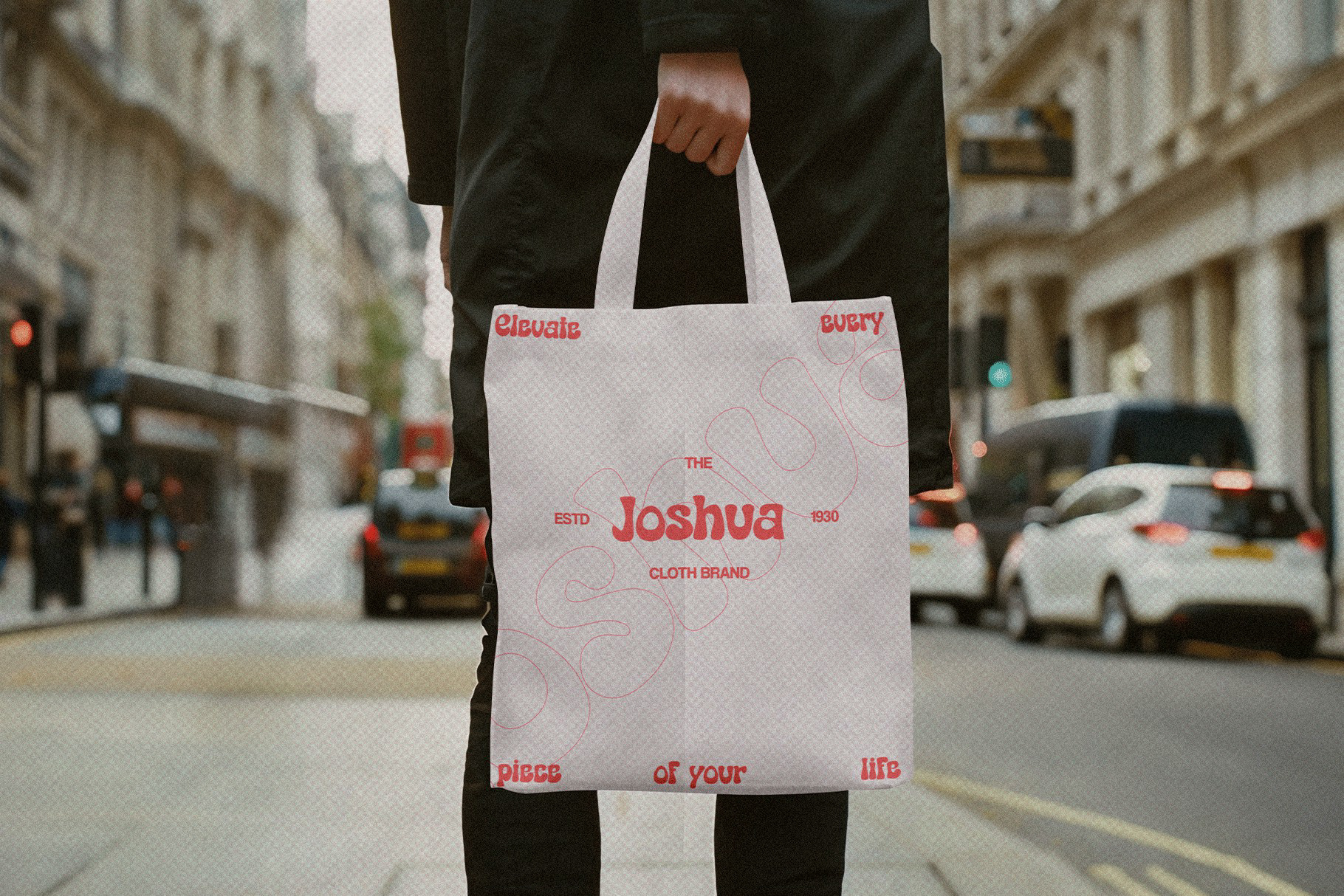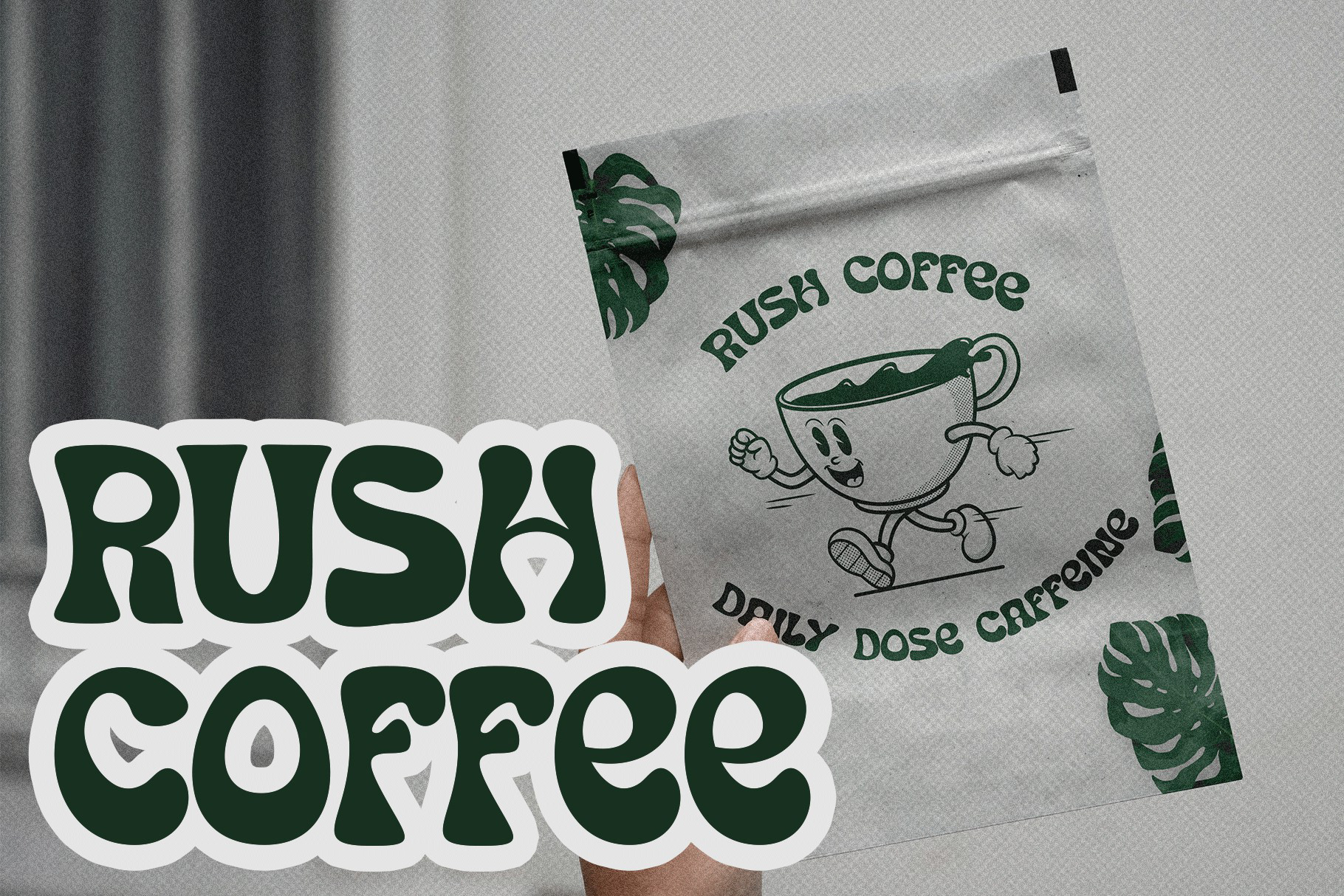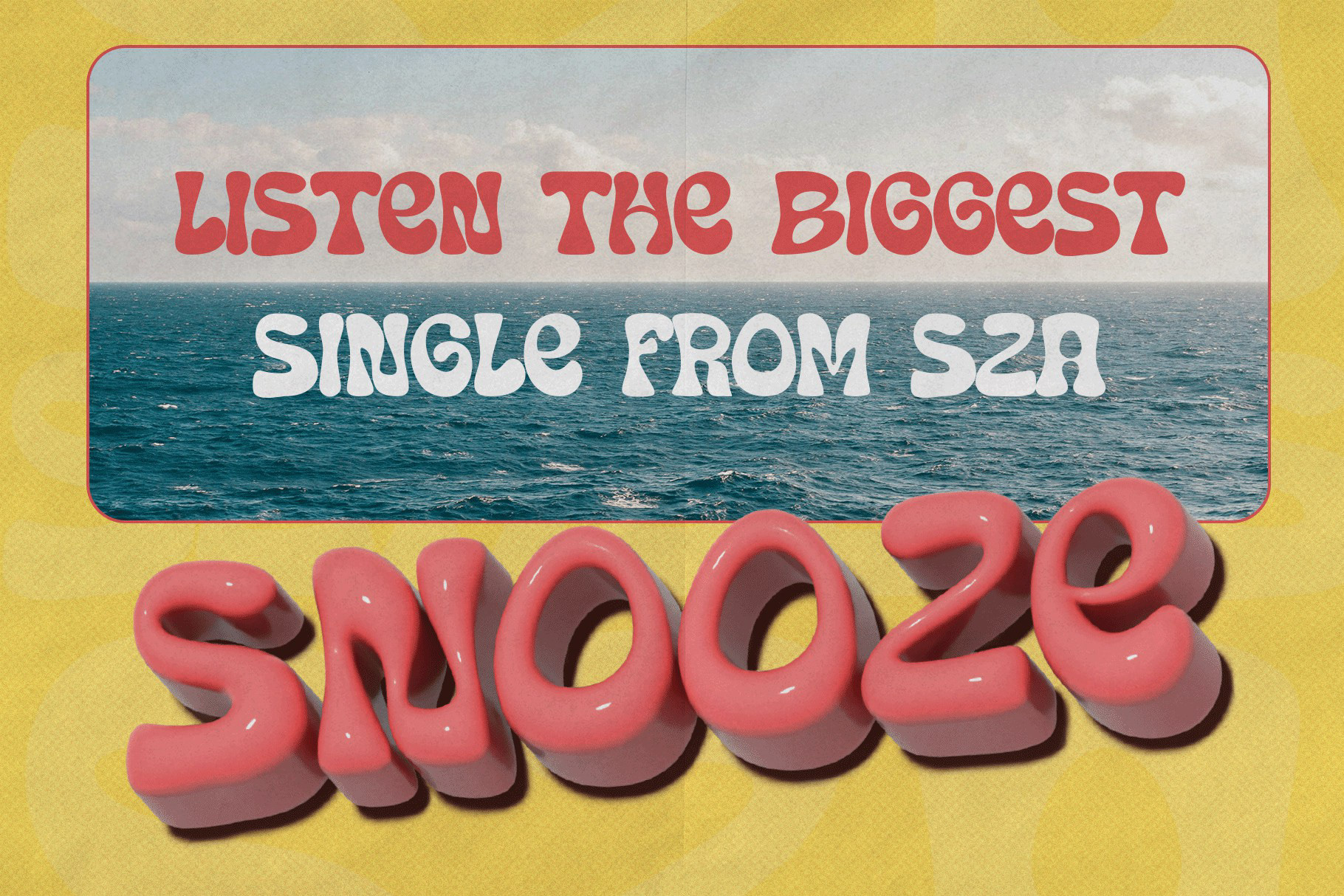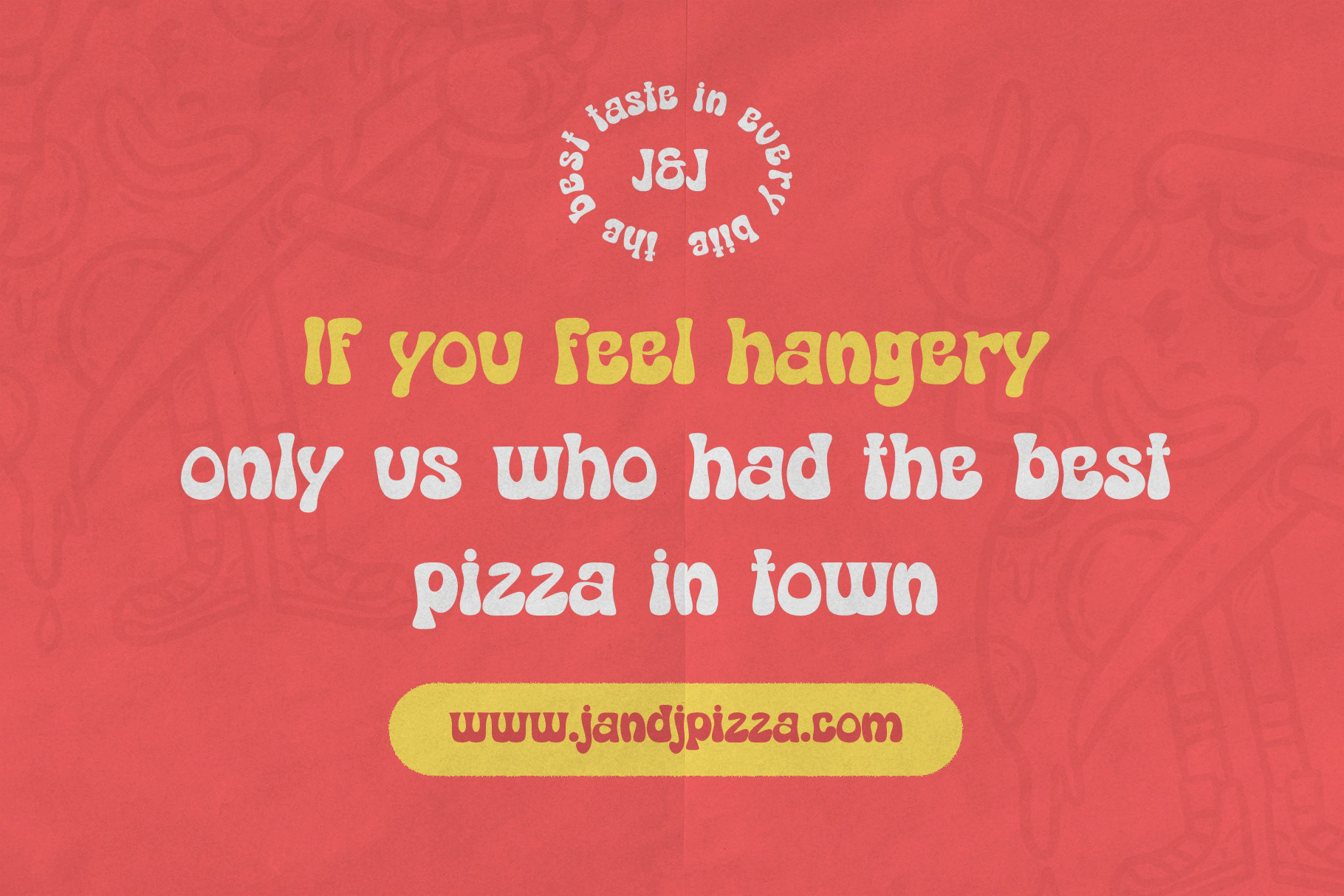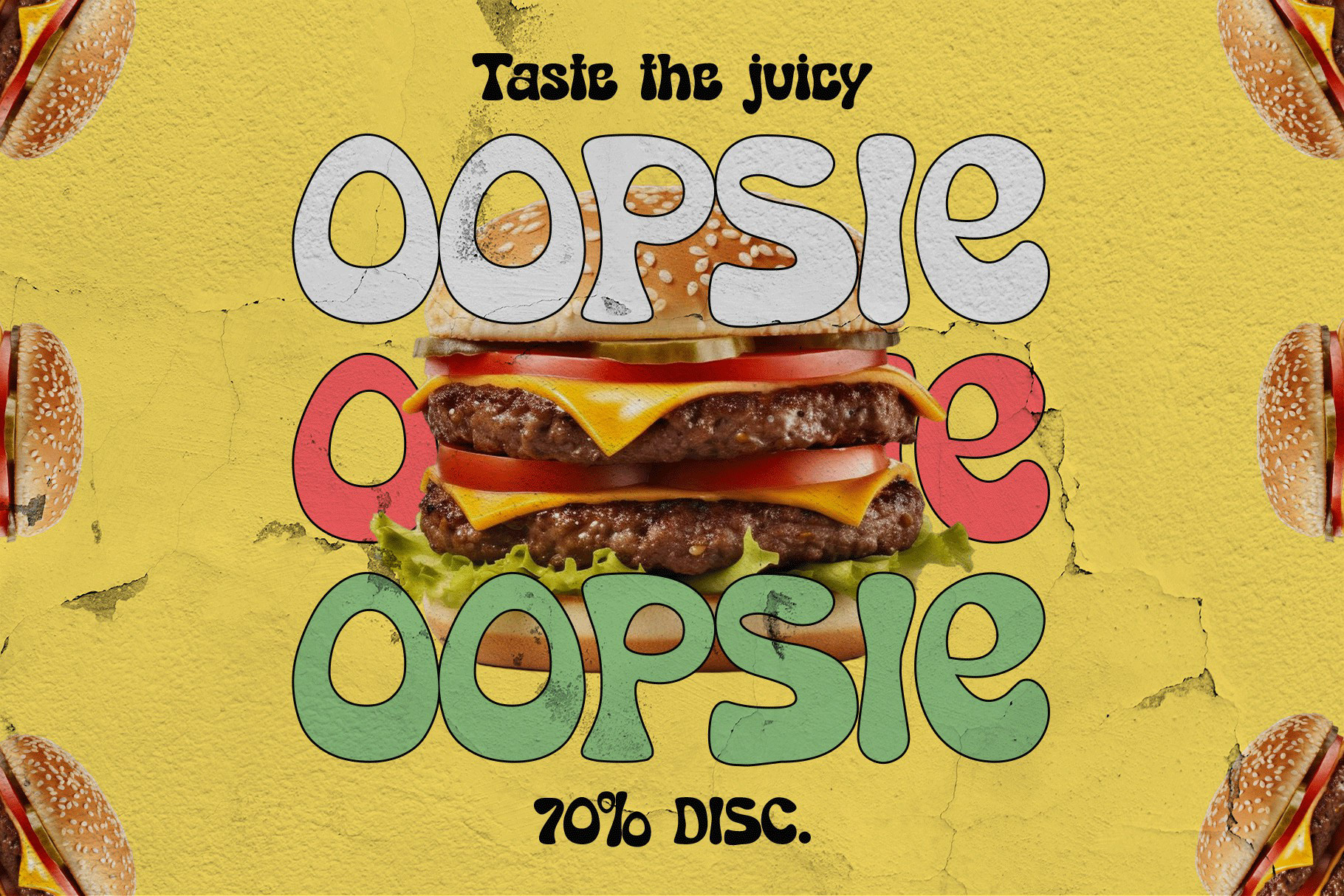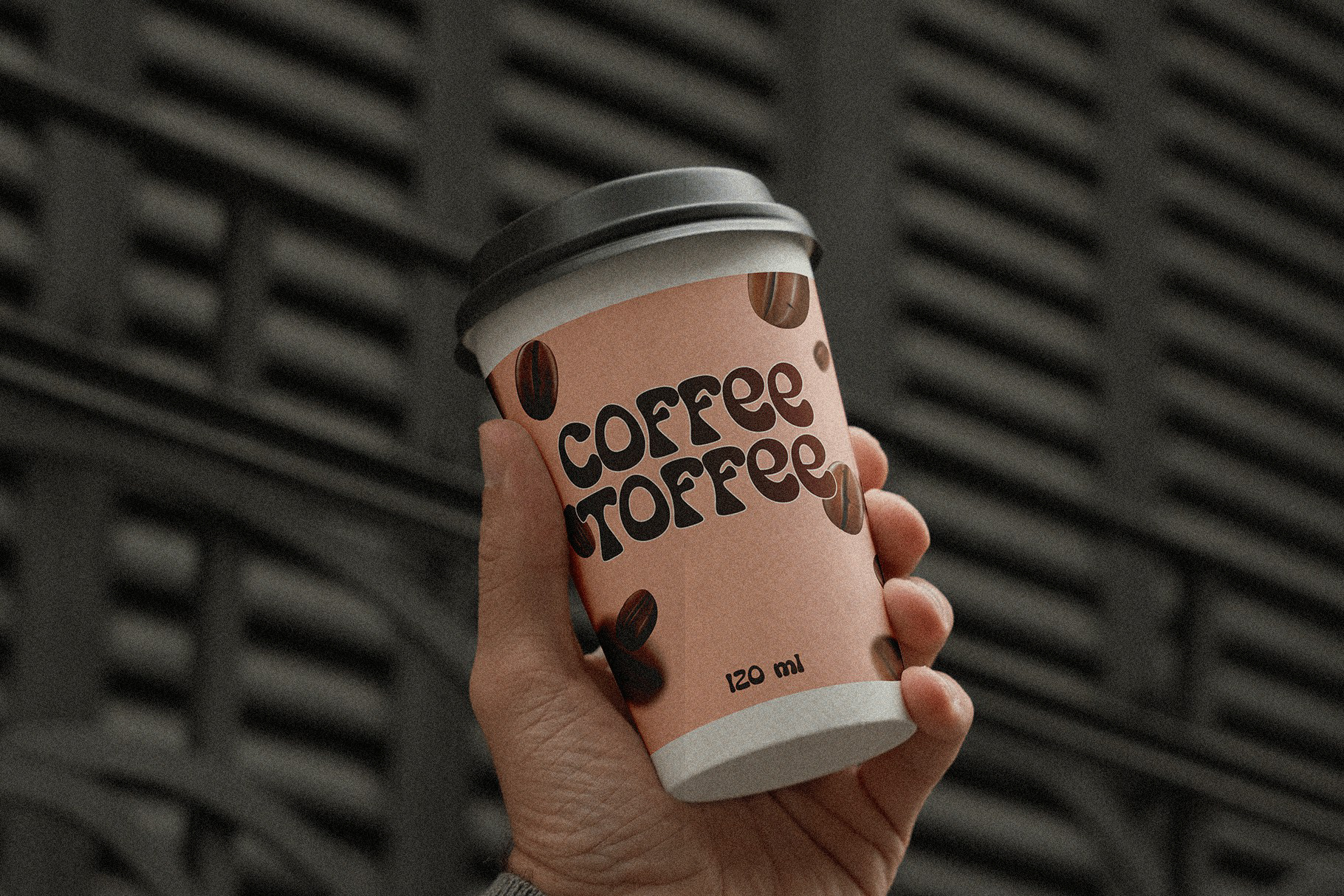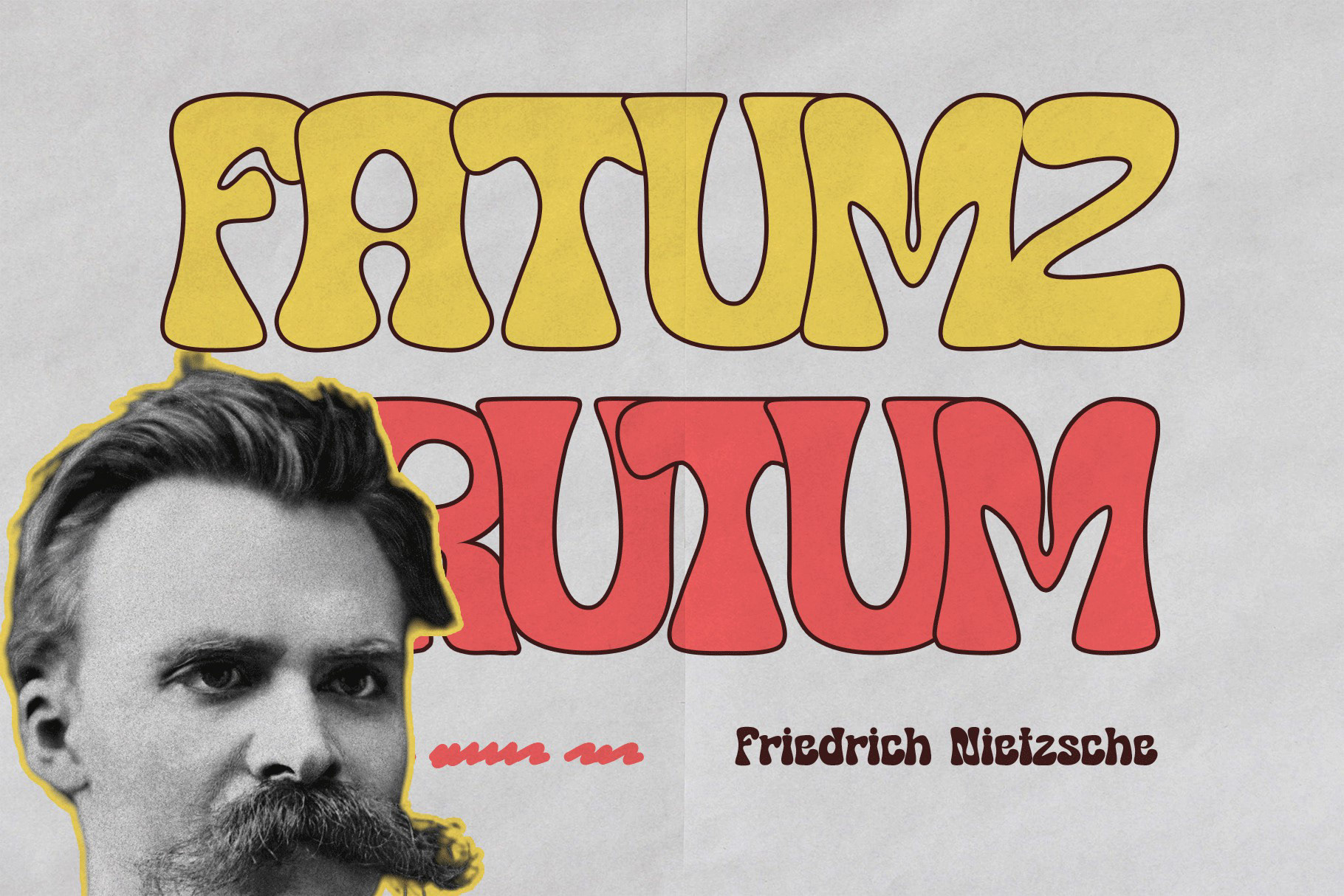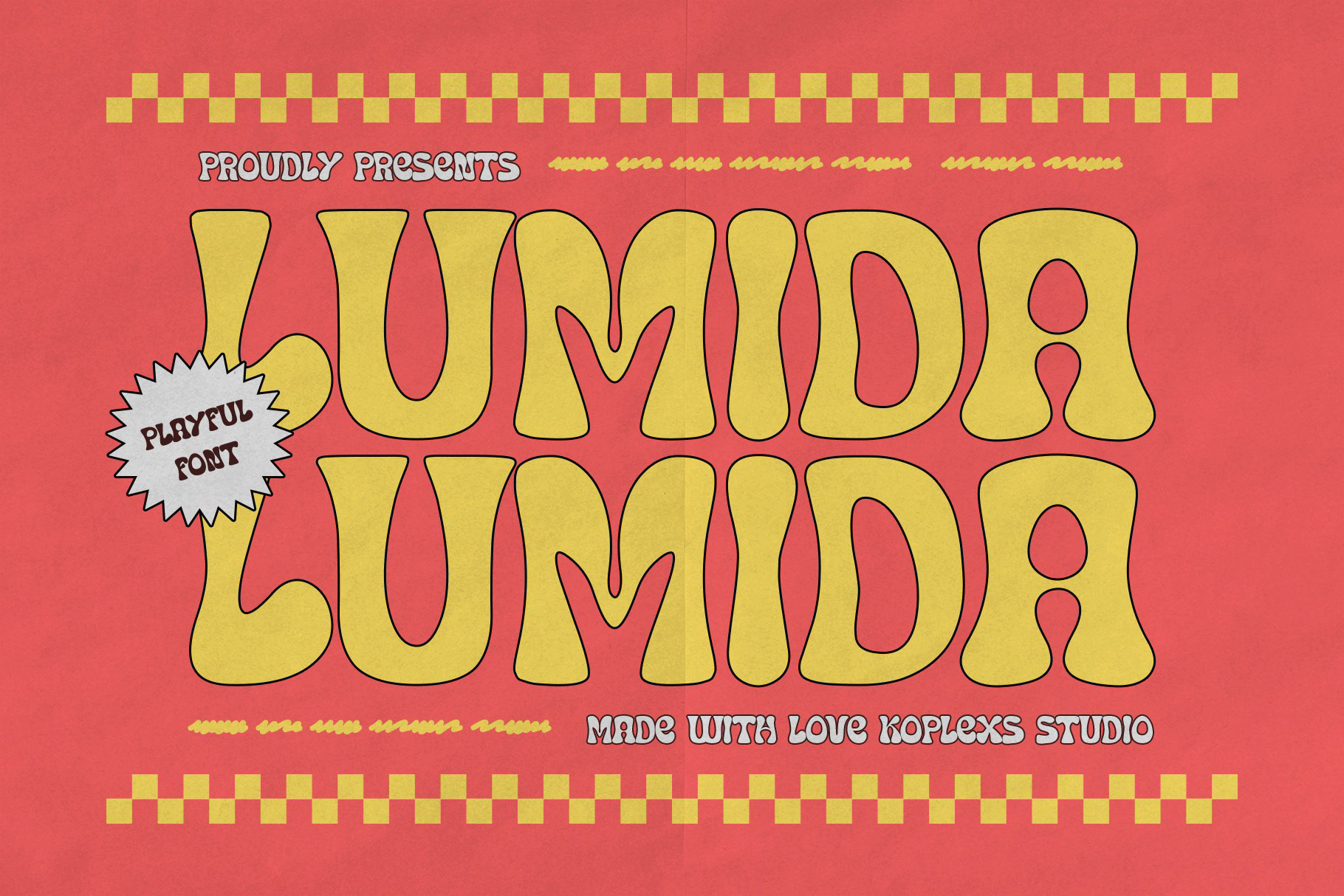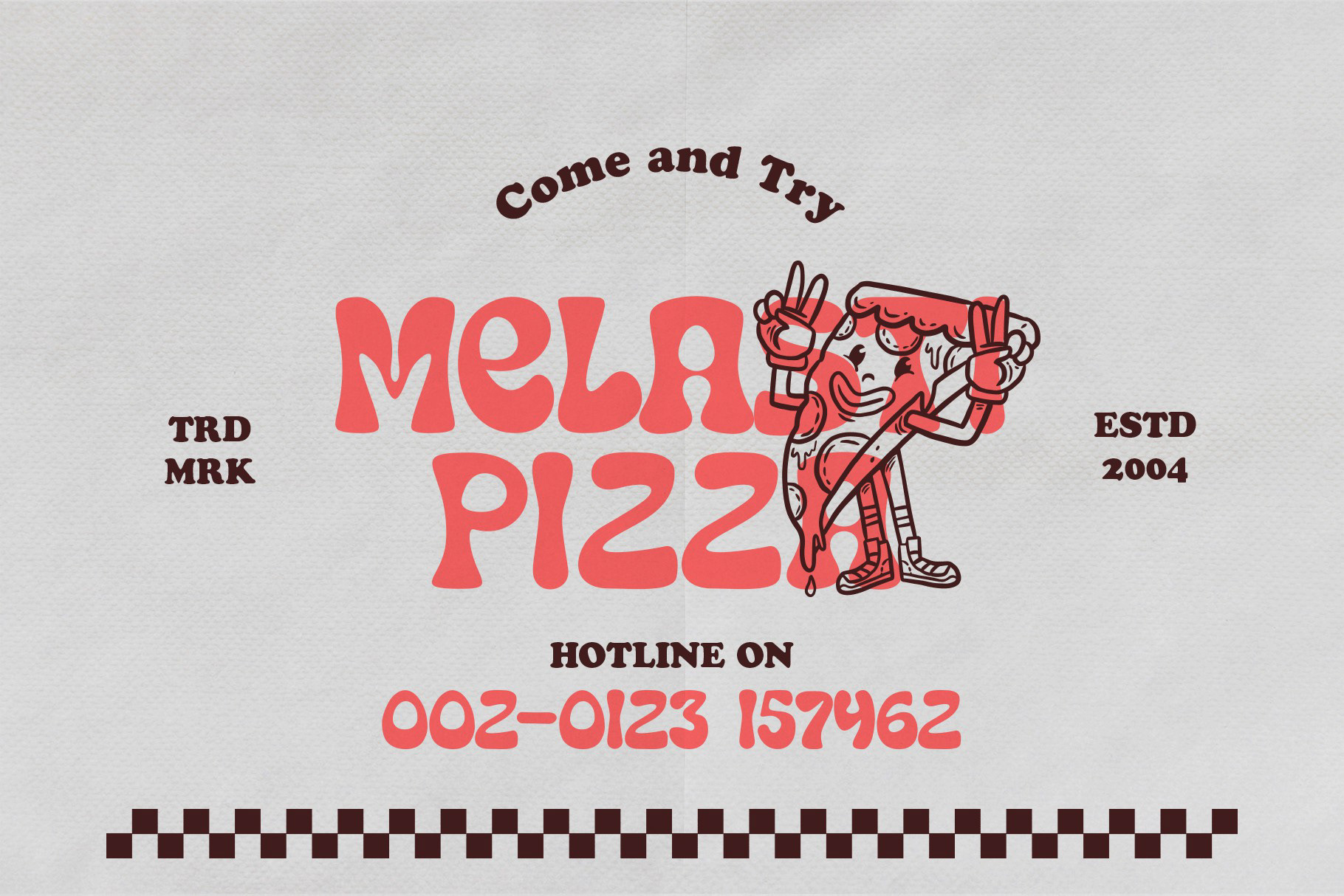
✨ Lumida – Playful Groovy Font to Elevate Your Designs! 🎨
A bold, eye-catching graphic showcasing "Lumida" in vibrant yellow on a retro red background, with playful elements like wavy lines, checkered patterns, and product mockups like tote bags, posters, and branding materials.
📢 Bring Retro Charm to Modern Designs
Introducing Lumida, a playful groovy font inspired by the funky vibes of the 70s! Perfect for creatives looking to infuse their projects with bold, cheerful, and retro-modern aesthetics. From branding to merchandise, Lumida makes your designs stand out effortlessly.
✨ Key Features:
Playful Retro Style: Rounded, exaggerated curves with a nostalgic feel.
Versatile Applications: Ideal for branding, packaging, posters, and digital content.
High-Quality Design: Crafted with smooth, professional letterforms.
Visual Showcase:
1. Branding Mockups:
Display Lumida in logos, business cards, and labels to highlight its adaptability for creative and lifestyle brands.
1. Branding Mockups:
Display Lumida in logos, business cards, and labels to highlight its adaptability for creative and lifestyle brands.
2. Merchandise Display:
Showcase Lumida on tote bags, t-shirts, or product packaging to demonstrate its impact on physical products.
3. Digital Graphics:
Feature Instagram posts, YouTube thumbnails, or website banners using Lumida to show how it thrives in the digital space.
4. Typography Exploration:
Create an artistic typography grid showing Lumida's letters, numbers, and special characters, emphasizing its uniqueness.